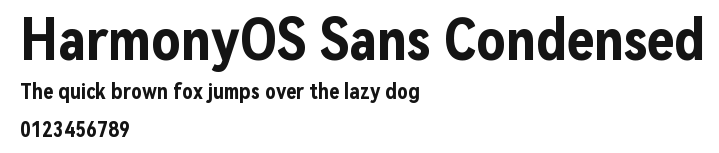
HarmonyOS Sans Condensed Preview
• Font Name: HarmonyOS Sans Condensed
• Designer: Huawei Device Co., Ltd & Hanyi Fonts
• Manufacturer: Hanyi Fonts
About HarmonyOS Sans Condensed.ttf
HarmonyOS Sans Condensed.ttf is a modern, elegant sans-serif font designed for ultimate readability and visual harmony. Perfect for branding, headlines, web design, and print materials.